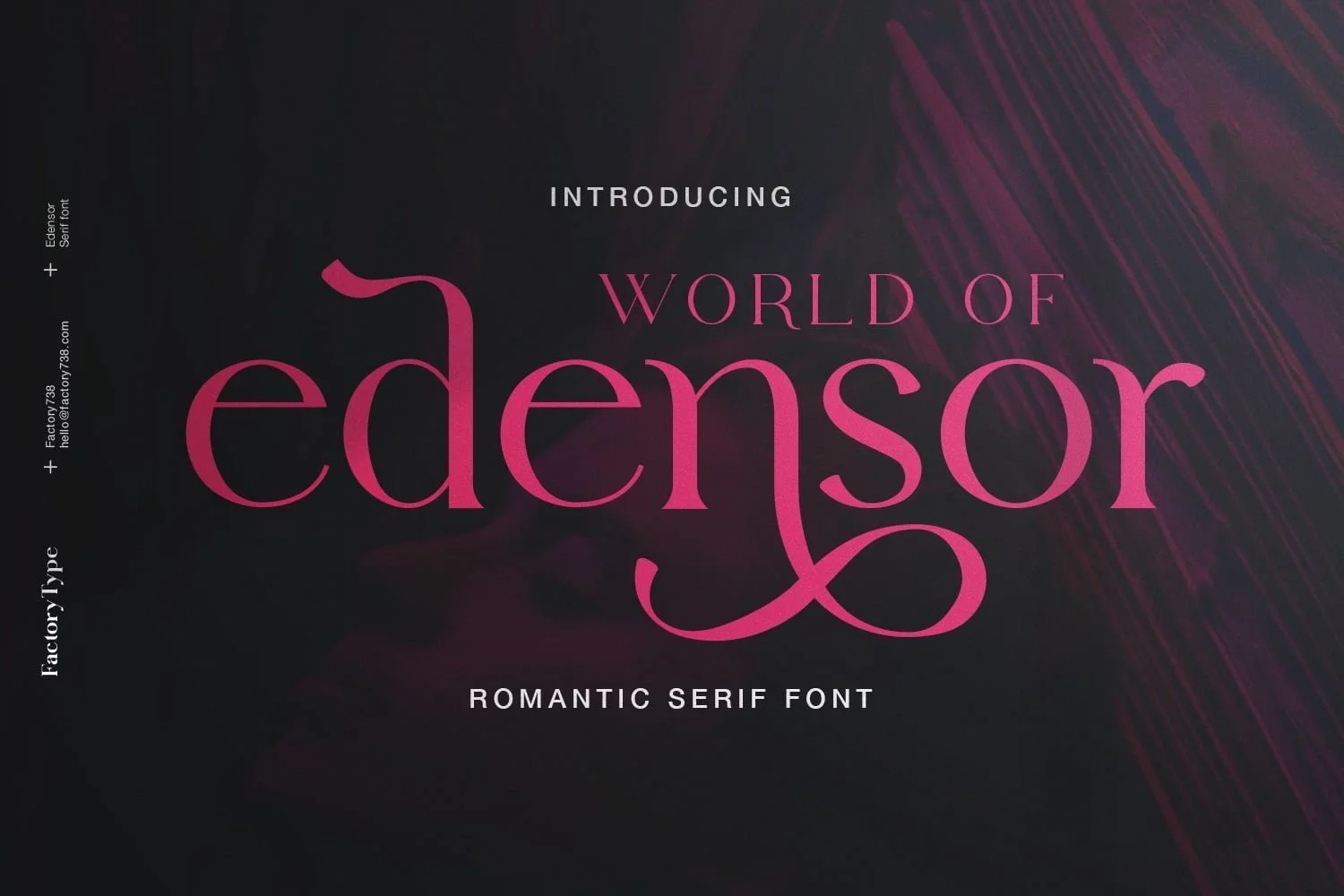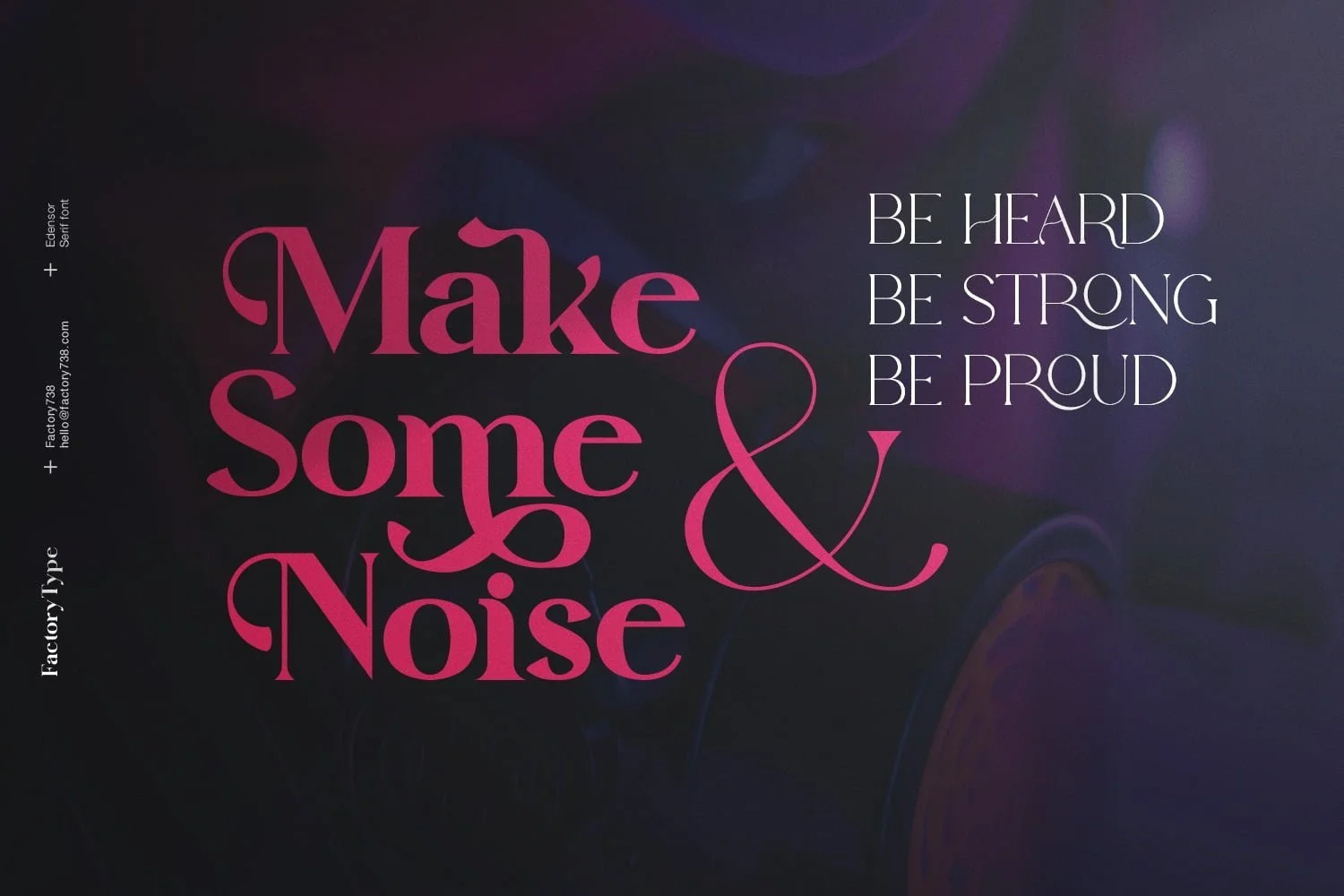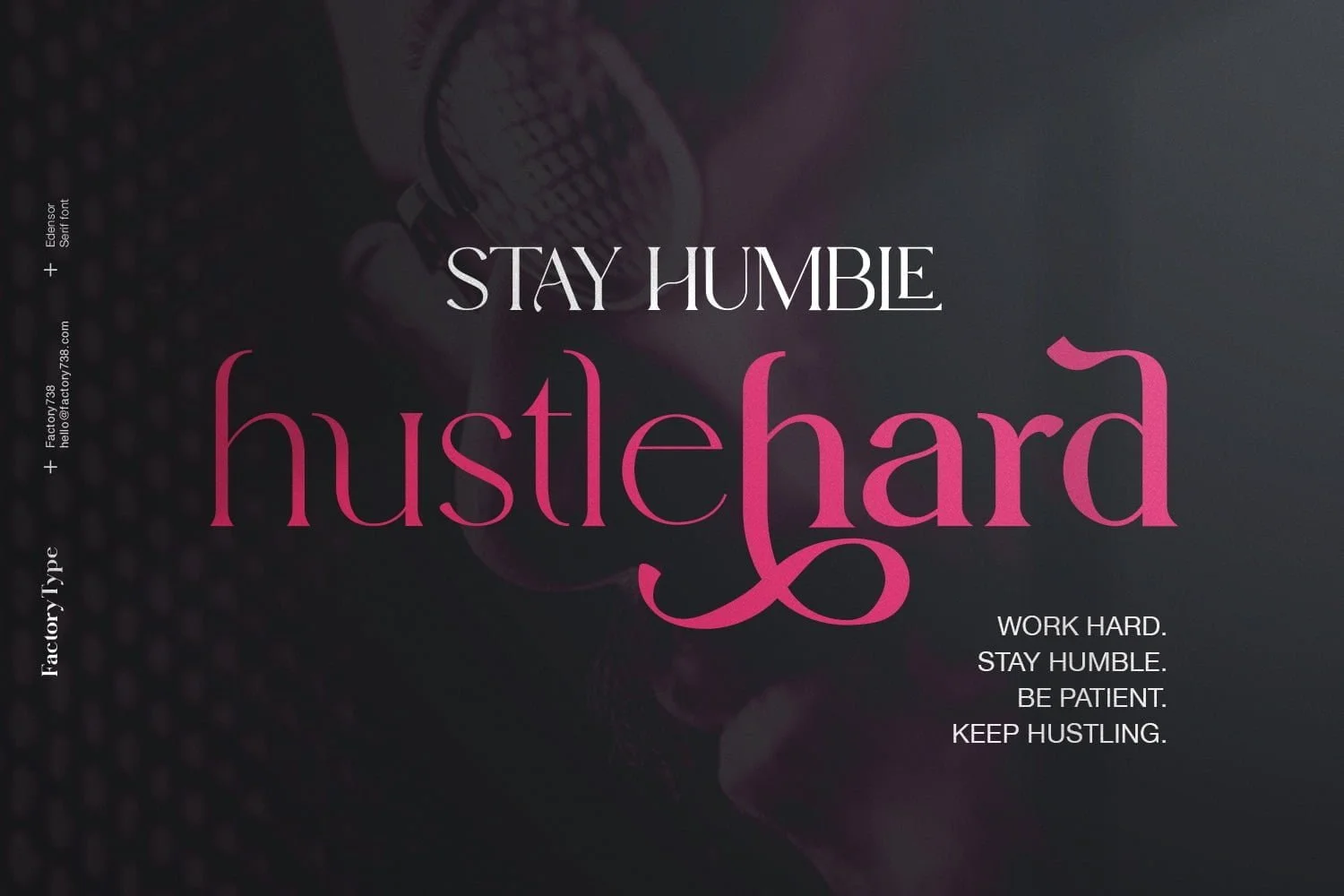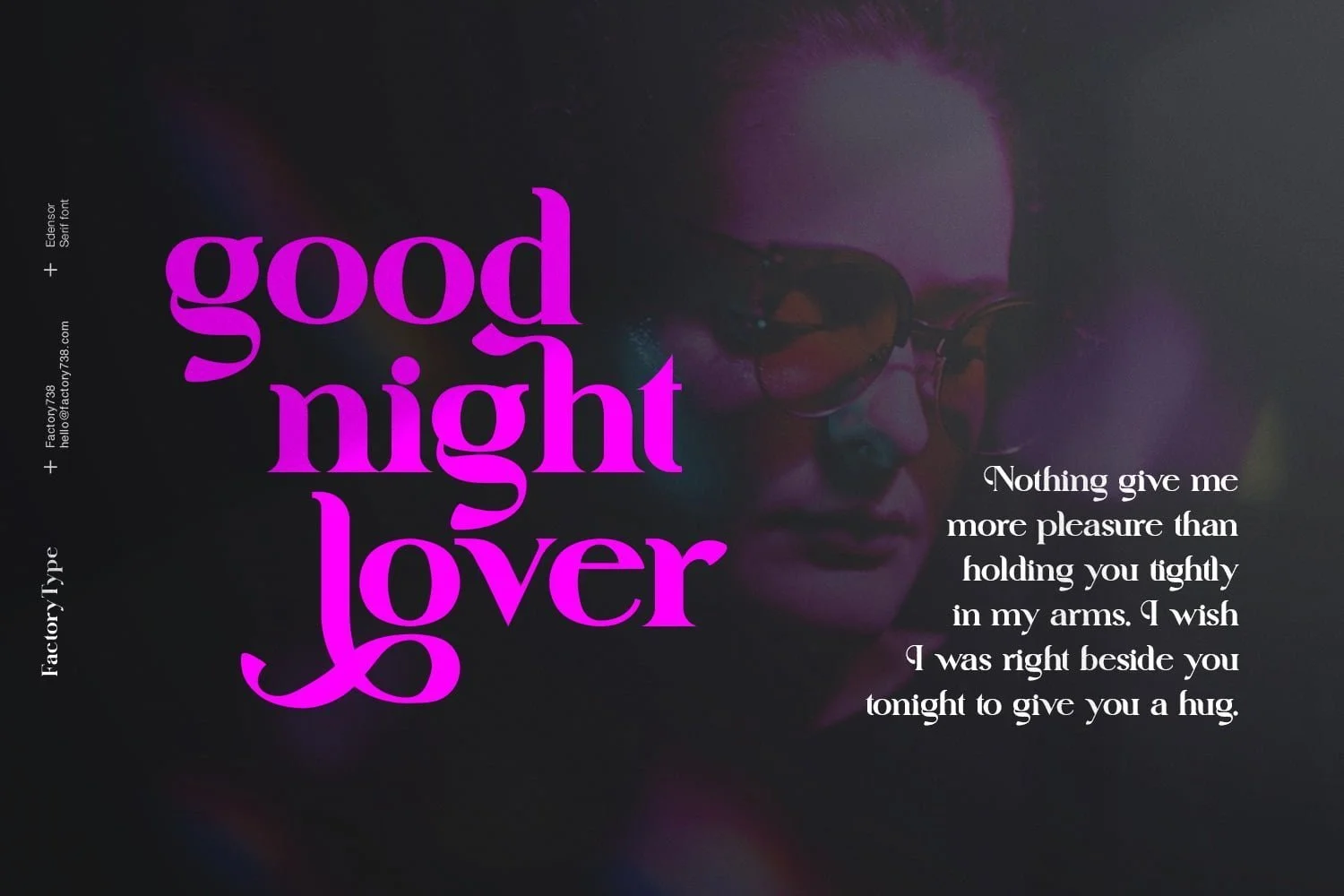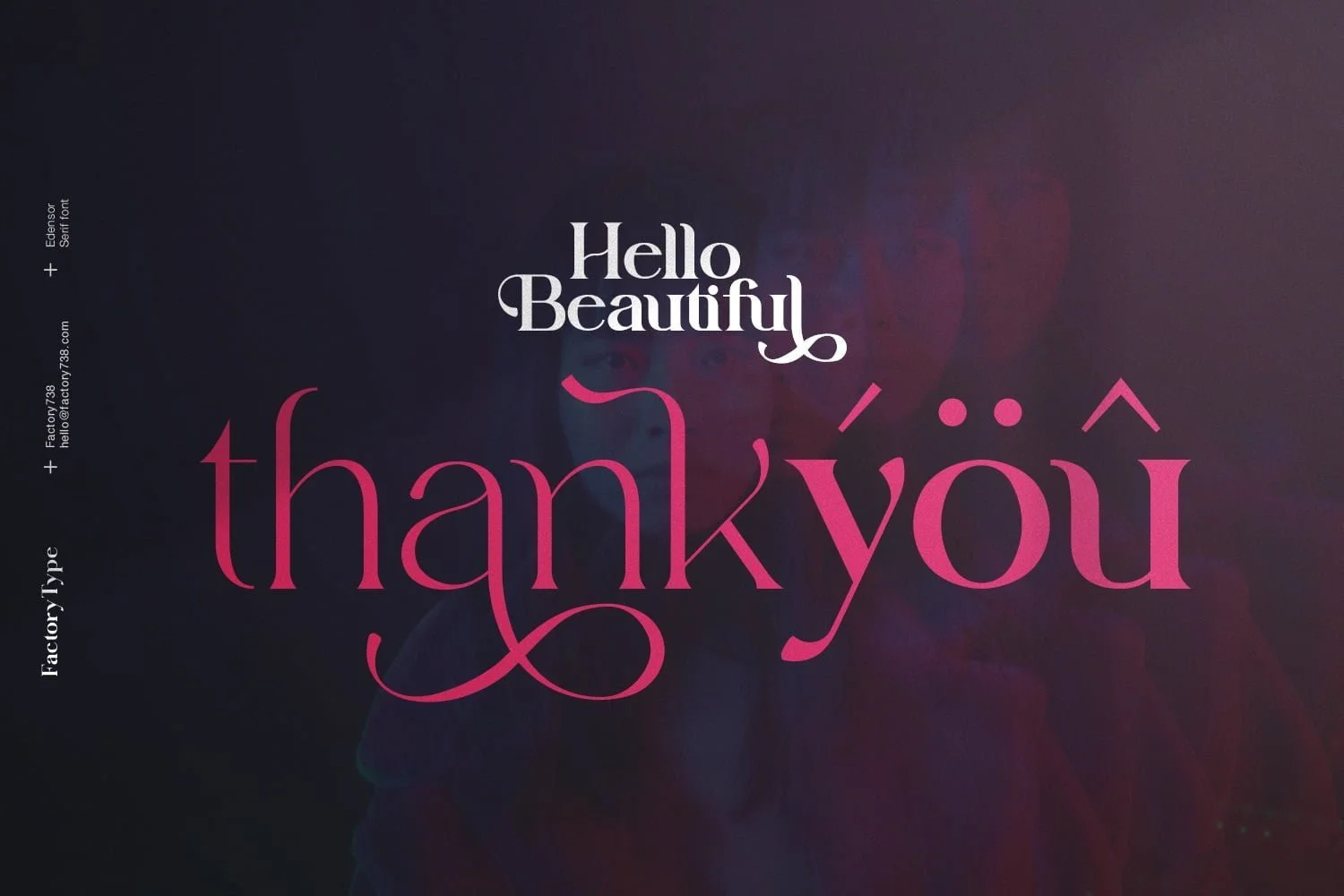
Edensor Pro — A Thoughtful Romantic Serif for Sincere Communication
Meet Edensor Pro, a thoughtful luxury serif designed to help you communicate with romantic charm and heart. This typeface balances timeless elegance with graceful, organic curves, offering a warm and polished energy to your visual storytelling.
We crafted this professional 18-style family to be a reliable and sincere tool for your intimate branding, fashion editorials, and boutique digital experiences. We engineered it with obsessive care, including a vast library of alternates to help your message feel both structurally sound and deeply personal.
FEATURES
- 18 System Styles: 9 weights from delicate light to commanding bold, each with its graceful Italic.
- Technical: 1,158 glyphs, including custom ligatures and stylistic alternates for a hand-crafted feel.
- Ideal for: Wedding stationery, magazine mastheads, beauty packaging, and logo design.
- Global Support: Comprehensive and reliable support for over 120+ languages.